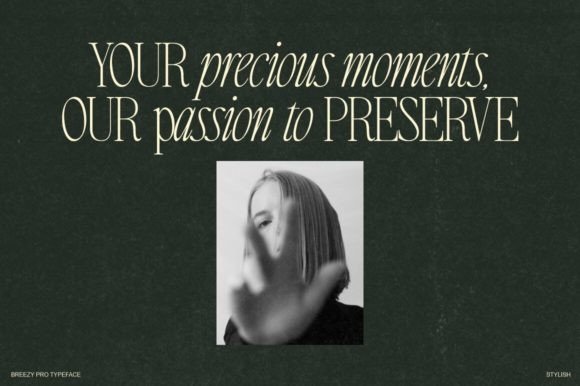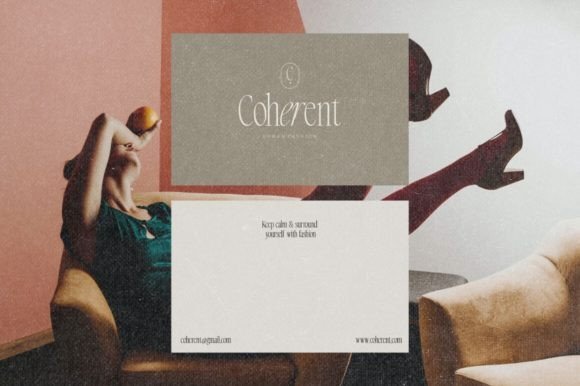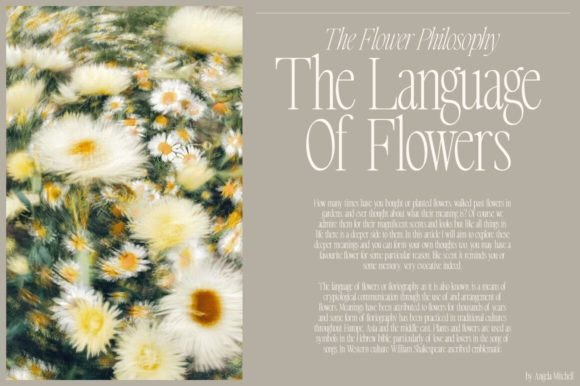
Unlock the Power of Elegant Typography
Imagine you’re flipping through a fashion magazine, and the words seem to dance on the page, drawing your attention to every detail. You feel inspired, and the perfect phrase jumps out at you, making you want to create something just as beautiful. That’s the magic of the right typography, and it’s exactly what the Breezy Pro Font is designed to deliver.
The Breezy Pro Font is a classical typeface with a modern twist, paired with a stunning italic version that will take your designs to the next level. With its elegant and stylish look, you can create eye-catching effects that make every word a masterpiece. Whether you’re working on a fashion project, designing inspirational quotes, or crafting logos, this versatile font is the perfect choice.
As a designer, you know how valuable a versatile and well-designed font can be. The Breezy Pro Font is PUA-encoded, making it easy to access all of its glyphs and giving you the freedom to unleash your creativity.
Breezy Pro Font Key Features
- Unique Characteristics: Breezy Pro Font features a modern and clean design, with subtle rounded edges and a high x-height, making it perfect for body text and titles.
- Language Support: Breezy Pro Font supports a wide range of languages, including Latin, Cyrillic, and Greek, making it a versatile choice for global design projects.
- Font Styles: Breezy Pro Font comes with 8 font styles, including Regular, Light, Medium, Bold, Extra Bold, Italic, Bold Italic, and Extra Bold Italic, providing flexibility for various design applications.
Breezy Pro Font Review
Overall, I found the Breezy Pro Font to be a solid addition to any designer’s toolkit. It’s got a certain charm that’s hard to deny.
- Legibility: The font is incredibly easy to read, even at smaller sizes. I found myself enjoying the way the letters flowed together.
- Flexibility: Breezy Pro is versatile enough to be used in a variety of settings, from body text to headings and even display text.
- Consistency: The font’s design is consistent throughout, which makes it easier to work with and ensures a cohesive look.
- Lack of distinctiveness: While Breezy Pro is pleasant to look at, it doesn’t particularly stand out from other fonts in its class.
- Not ideal for bold typography: The font’s design makes it less suitable for bold, eye-catching typography. It works better in more subtle applications.
While Breezy Pro may not be the most exciting font out there, it’s a reliable choice for designers who want a clean, easy-to-read font that won’t distract from the content. It’s not a bad addition to any font collection, but it’s not a standout either.
Getting the Most Out of Breezy Pro
Here are some tips for getting the most out of Breezy Pro font:
- Use Breezy Pro for headings and titles to add a touch of elegance.
- Pair Breezy Pro with other fonts to create a unique and stylish combination.
- Experiment with different font sizes and colors to create a visually appealing design.
Breezy Pro font is perfect for:
- Designing elegant and sophisticated logos.
- Creating stylish and modern marketing materials.
- Adding a touch